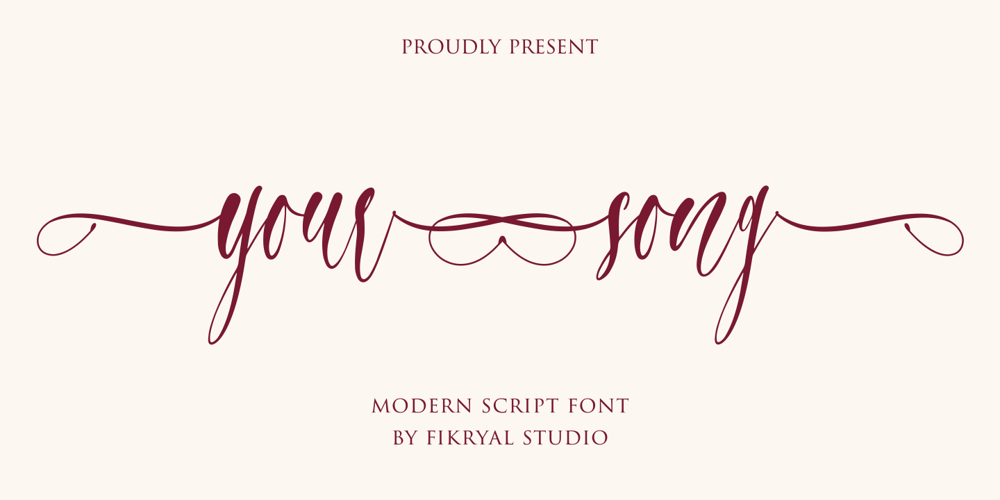
Your Song Font Family was designed by Muhammad Fikry and published by Fikryal. Your Song contains 1 styles and family package options. Your Song is a beautiful calligraphy font perfect for crafting, branding, invitation, stationery, wedding designs, social media posts, advertisements, product packaging, product designs, label, photography, watermark, special events or anything.Your Song comes with full set of uppercase and lowercase letters, swash alternates, ligatures,multilingual symbols, numerals and punctuation.